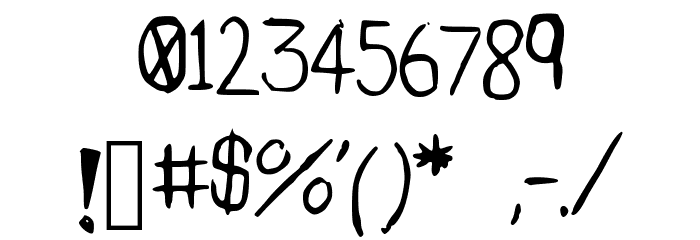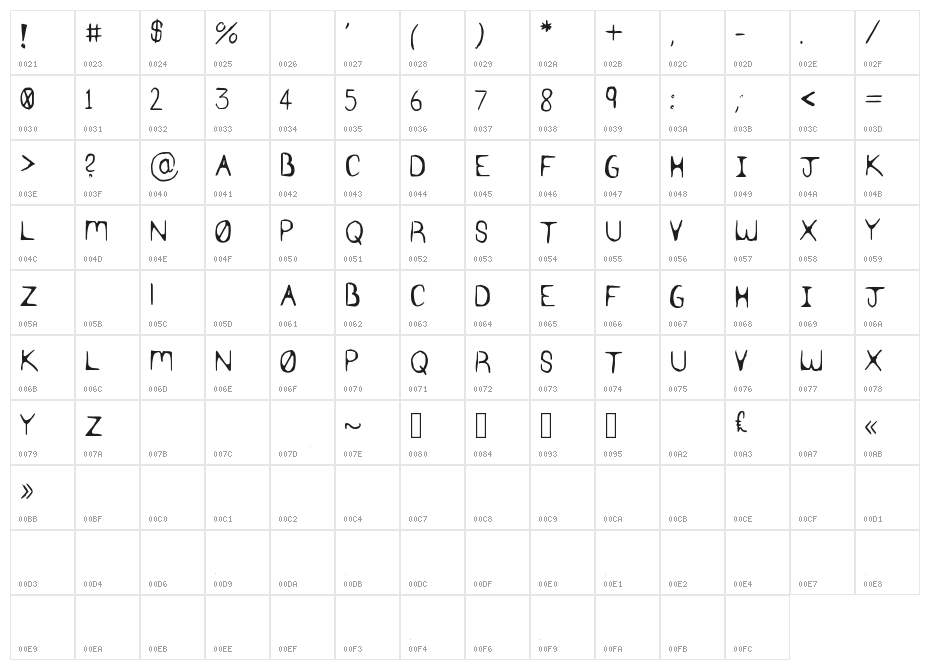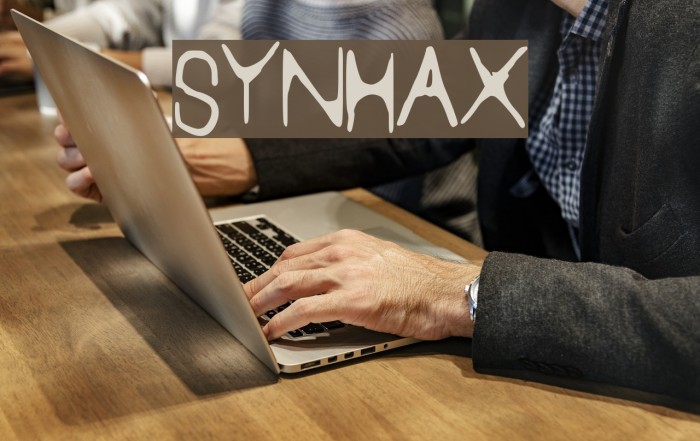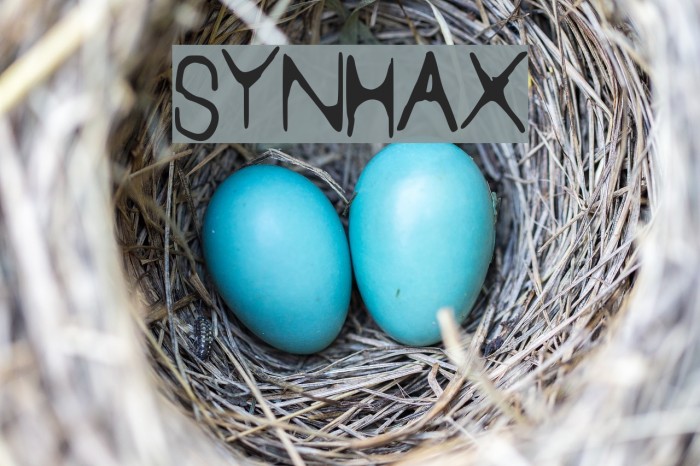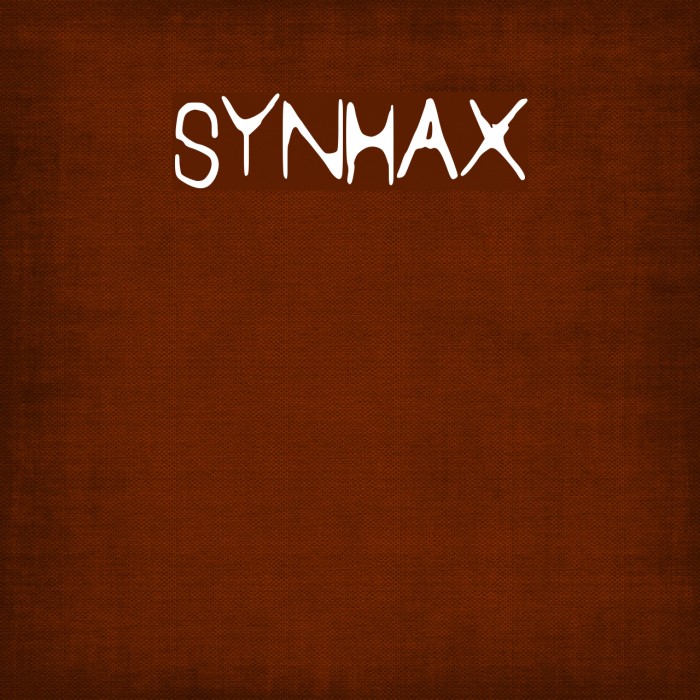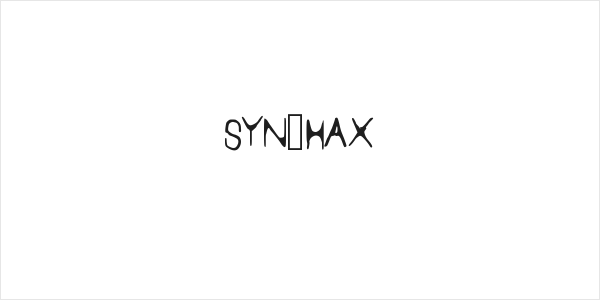
SYN_HAX Font
SYN_HAX Description
This font features a unique and edgy design with a hand-drawn appearance. The characters are irregular and slightly distorted, giving them a raw and artistic feel. The uppercase letters have a bold presence with exaggerated curves and angles, while the lowercase letters maintain a consistent style that complements the uppercase. The numbers and special characters follow the same aesthetic, ensuring a cohesive look throughout. This font's distinctive style makes it ideal for projects that require a bold and unconventional statement.